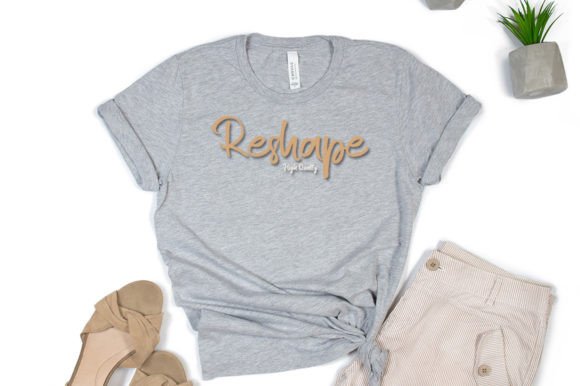
Introducing Goostine Font: A Modern Handwritten Brush Font
Are you looking for a font that can add a touch of personality and elegance to your designs? Look no further than Goostine Font, a modern handwritten brush font that is sure to make your projects stand out. With its organic, dynamic, and energetic style, Goostine is the perfect choice for a wide range of applications, from titles and signatures to logos, correspondence, and more.
Key Features of Goostine Font
- Modern Handwritten Brush Font: Goostine is a carefully crafted font that mimics the look and feel of handwritten brush scripts. Its modern take on traditional brush lettering makes it perfect for designs that require a fresh and contemporary look.
- Organic, Dynamic, and Energetic Style: Goostine’s unique style is characterized by its organic and dynamic strokes, which give it an energetic and lively feel. This makes it ideal for designs that require a touch of personality and whimsy.
- Versatile: Goostine can be used for a wide range of purposes, including titles, signatures, logos, correspondence, wedding invitations, letterheads, signage, labels, newsletters, posters, badges, and more.
10 Creative Ways to Use Goostine Font
- Wedding Invitations: Add a touch of elegance and romance to your wedding invitations with Goostine. Its beautiful, flowing strokes make it perfect for wedding stationery.
- Logos and Branding: Create a unique and memorable logo for your business with Goostine. Its modern and energetic style makes it ideal for startups and businesses that want to stand out.
- Signage: Use Goostine to create eye-catching signage for your business or event. Its bold and dynamic strokes make it perfect for grabbing attention.
- Posters and Flyers: Add a touch of personality to your posters and flyers with Goostine. Its energetic style makes it perfect for promoting events, products, or services.
- Social Media Graphics: Use Goostine to create engaging social media graphics that will help you stand out from the crowd. Its modern style makes it perfect for creating shareable content.
- Letterheads and Stationery: Add a touch of elegance to your letterheads and stationery with Goostine. Its beautiful, flowing strokes make it perfect for formal and informal correspondence.
- Labels and Packaging: Use Goostine to create custom labels and packaging for your products. Its unique style makes it perfect for adding a personal touch to your products.
- Badges and Certificates: Create custom badges and certificates with Goostine. Its modern and energetic style makes it perfect for recognizing achievements and milestones.
- Newletters and Magazines: Use Goostine to add a touch of personality to your newsletters and magazines. Its flowing strokes make it perfect for creating engaging headlines and titles.
- Typography: Experiment with Goostine as a display font for typography projects. Its unique style makes it perfect for creating stunning text-based designs.
Benefits of Using Goostine Font
- Unique and Memorable: Goostine’s unique style makes it perfect for creating memorable designs that will stand out from the crowd.
- Versatile: Goostine can be used for a wide range of applications, making it a great addition to any designer’s font library.
- Elegant and Refined: Goostine’s flowing strokes and modern style make it perfect for creating elegant and refined designs.
- Easy to Read: Despite its unique style, Goostine is easy to read, making it perfect for body text and headlines.
Tips and Tricks for Using Goostine Font
- Experiment with Font Sizes: Goostine looks great in a variety of font sizes, from large headings to smaller body text.
- Pair with Other Fonts: Experiment with pairing Goostine with other fonts to create stunning typography combinations.
- Use for Display Text: Goostine is perfect for display text, such as headings, titles, and captions.
- Add Texture and Patterns: Experiment with adding texture and patterns to your Goostine text to create unique and eye-catching designs.
In conclusion, Goostine Font is a modern handwritten brush font that is sure to add a touch of personality and elegance to your designs. With its organic, dynamic, and energetic style, Goostine is the perfect choice for a wide range of applications, from titles and signatures to logos, correspondence, and more. Whether you’re a designer, artist, or DIY enthusiast, Goostine is a great addition to any font library.